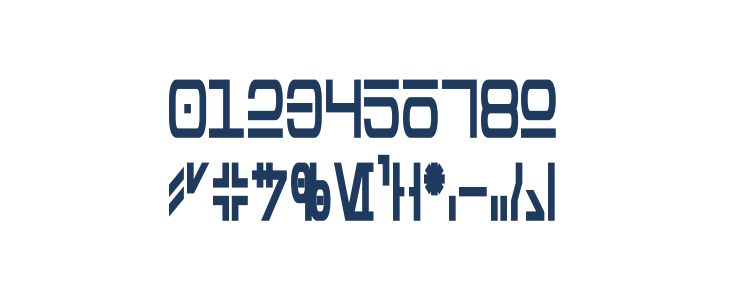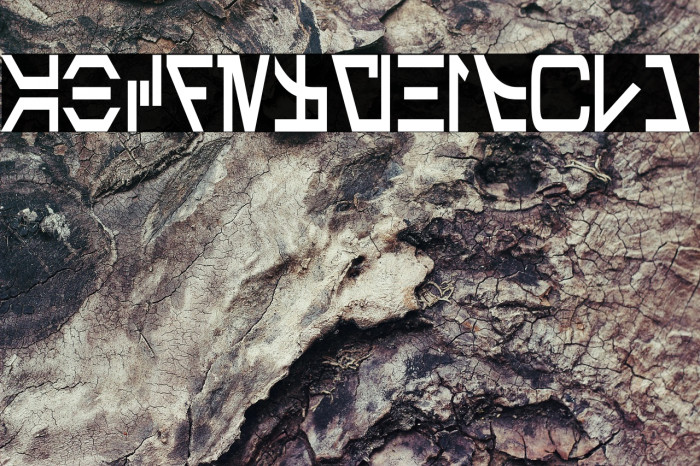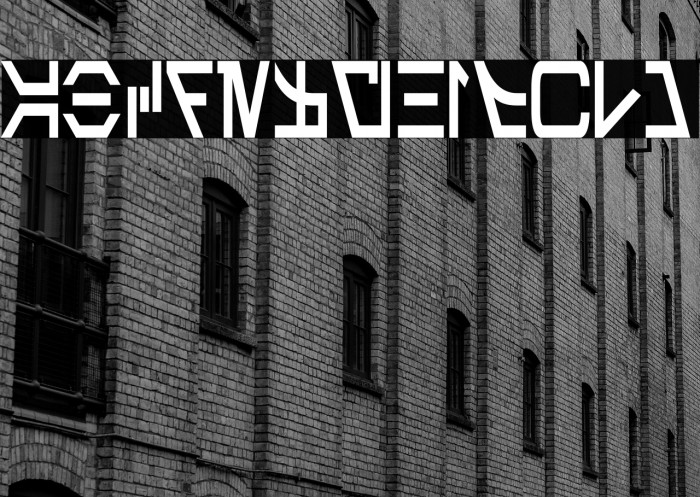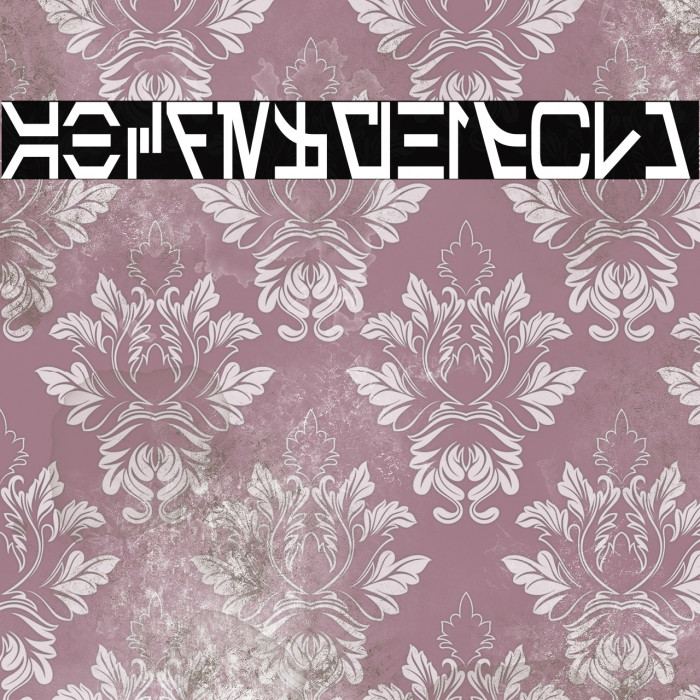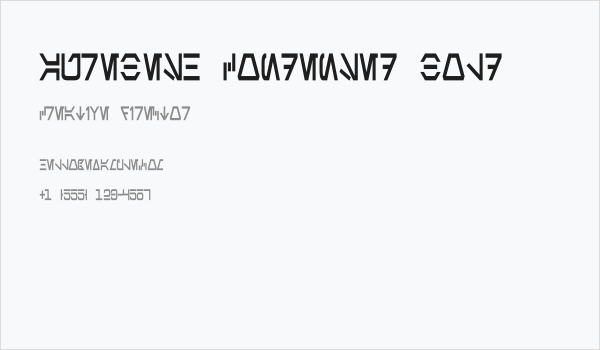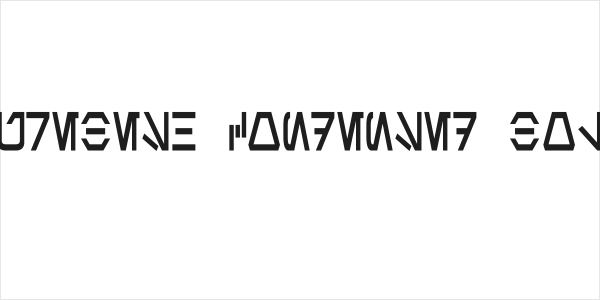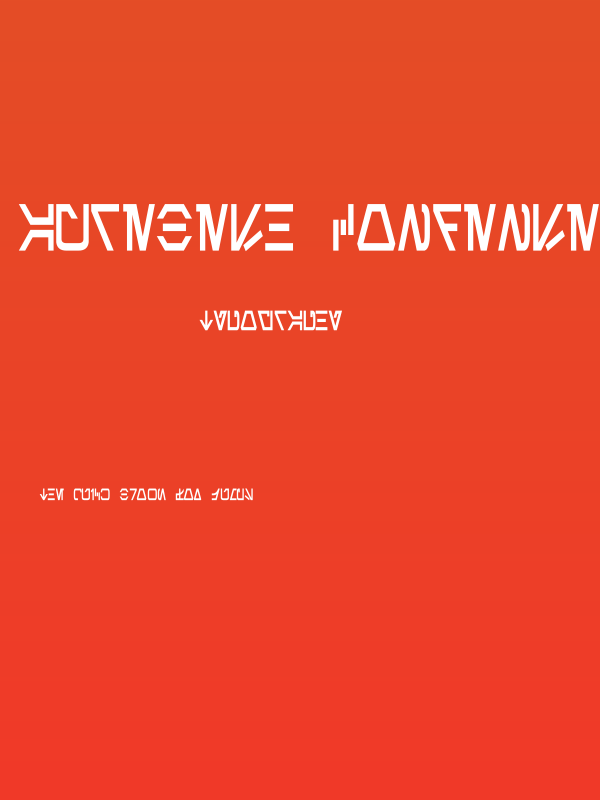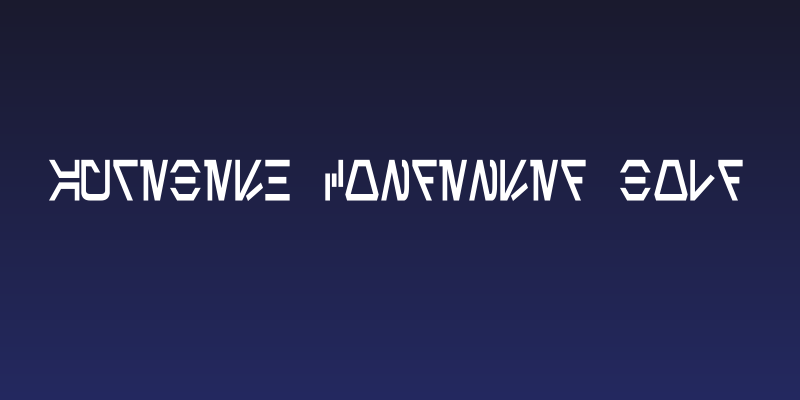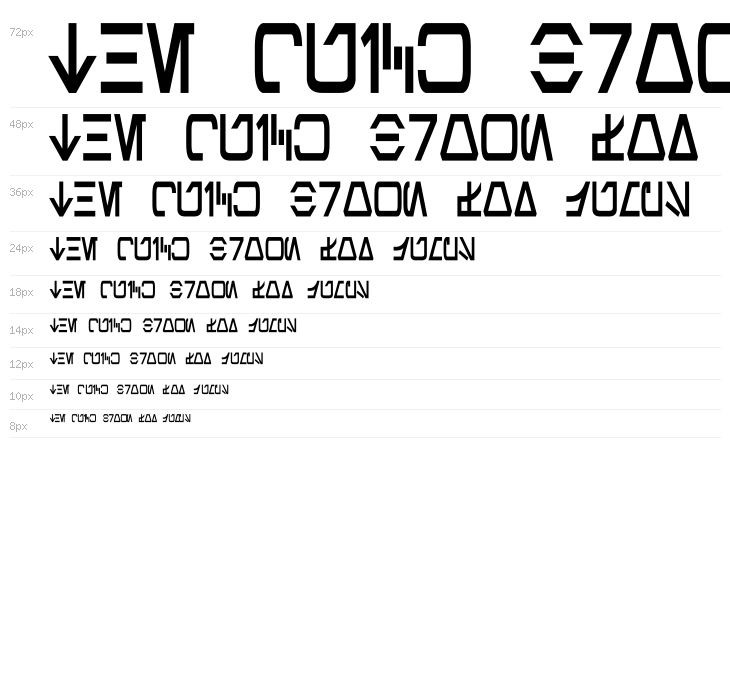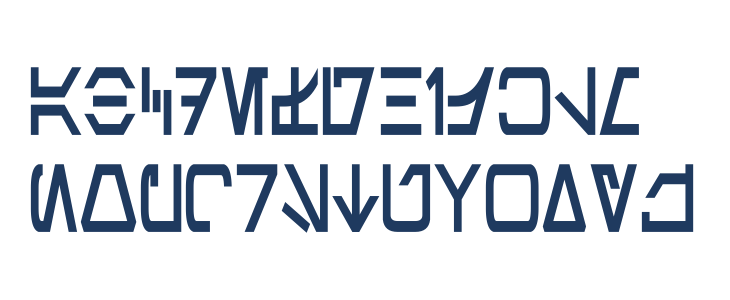
Aurebesh Condensed Bold Font
Aurebesh Condensed Bold Description
This font features a futuristic and angular design, reminiscent of alien or sci-fi scripts. The characters are bold and condensed, with sharp edges and geometric shapes that create a unique and striking appearance. The uppercase and lowercase letters maintain a consistent style, with each character exhibiting a distinct and recognizable form. Numbers and special characters follow the same design principles, ensuring uniformity across the entire set. The font's boldness and condensed width make it ideal for creating impactful visual statements, while its unique style adds a touch of otherworldly flair.